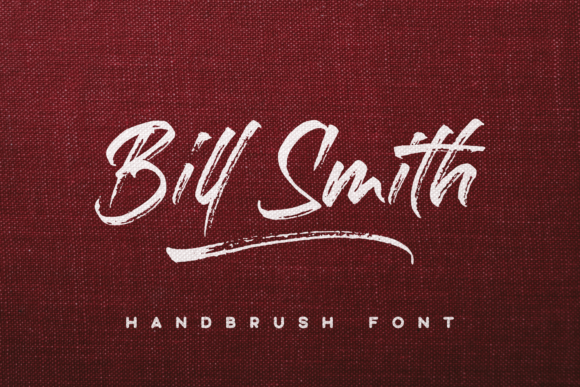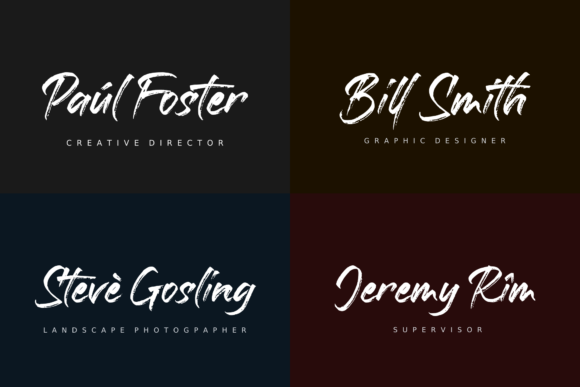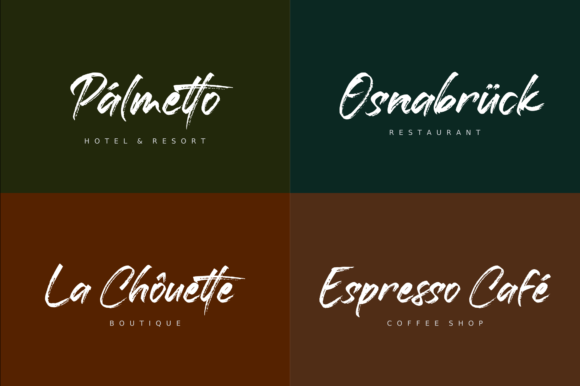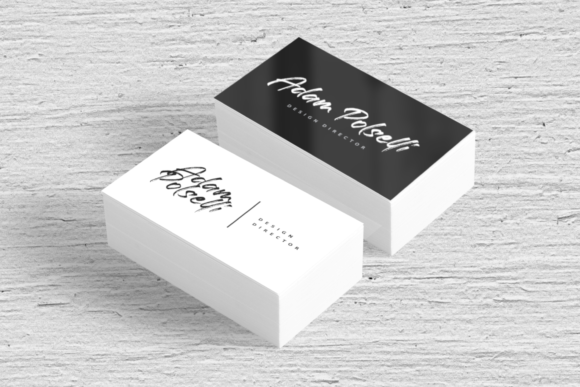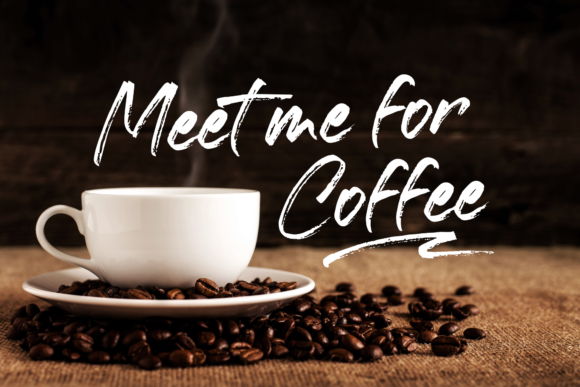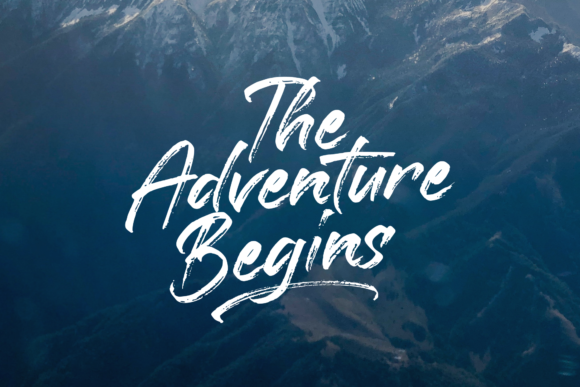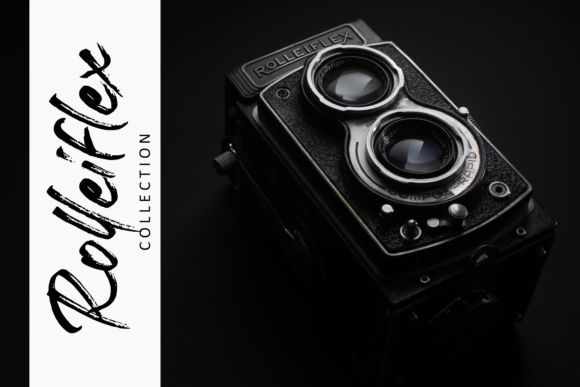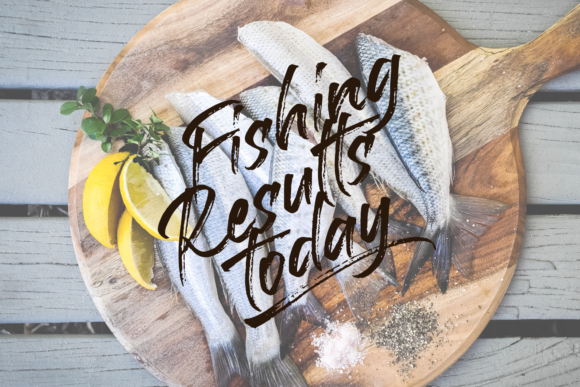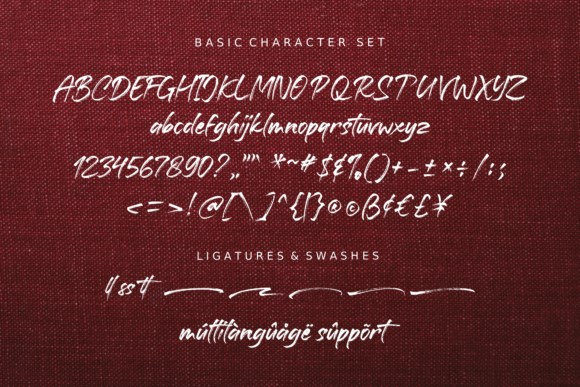
Bill Smith Font
About Bill Smith Font
Bill Smith is a fast writing brush script with textures and swashes. Use it for any design project that requires a personalized appearance!